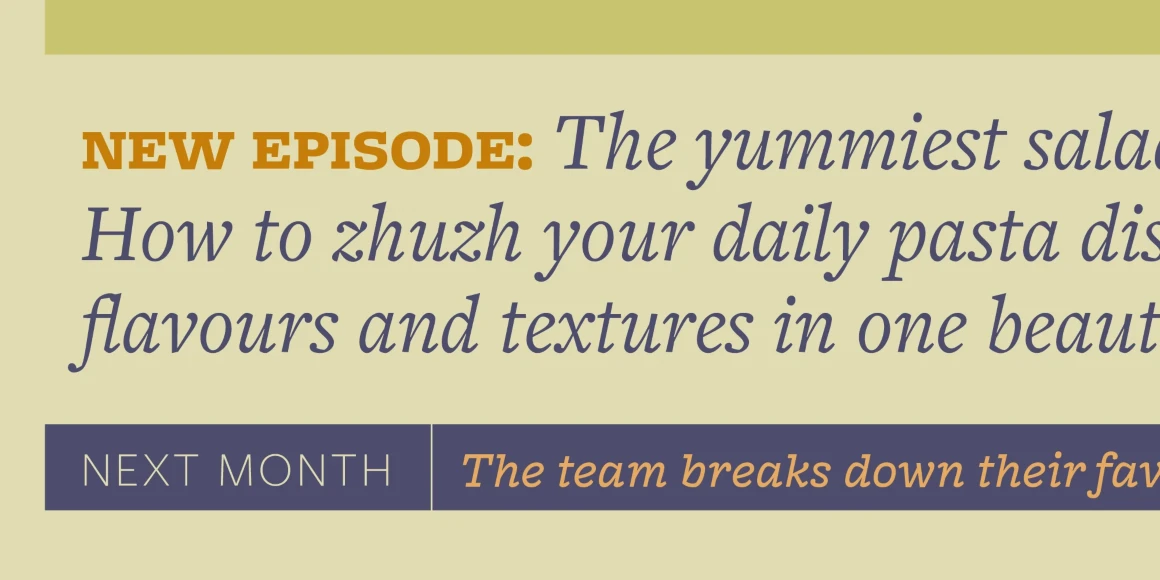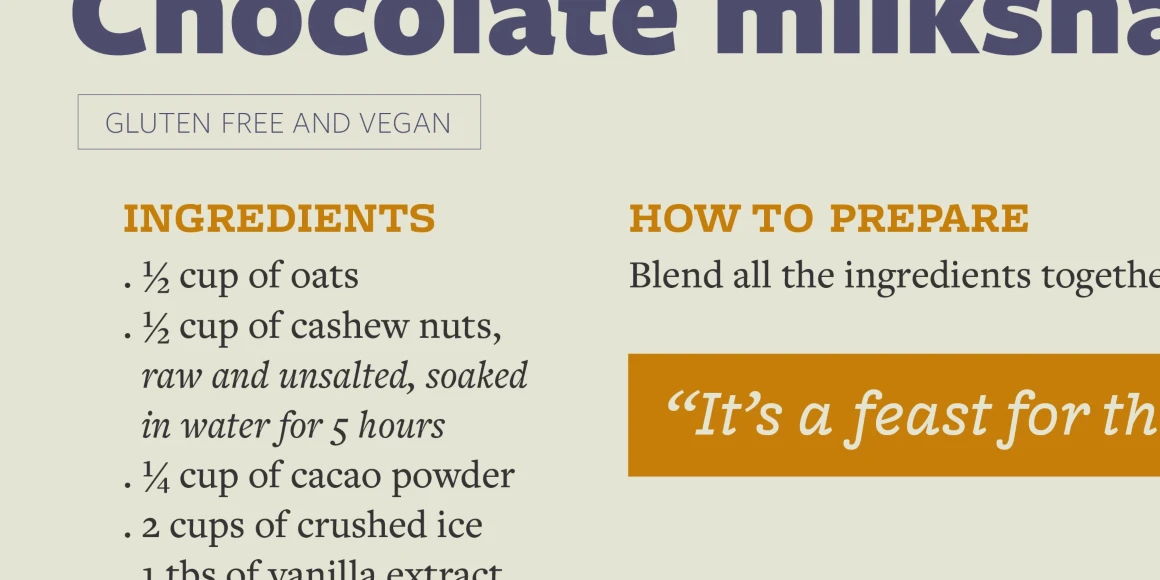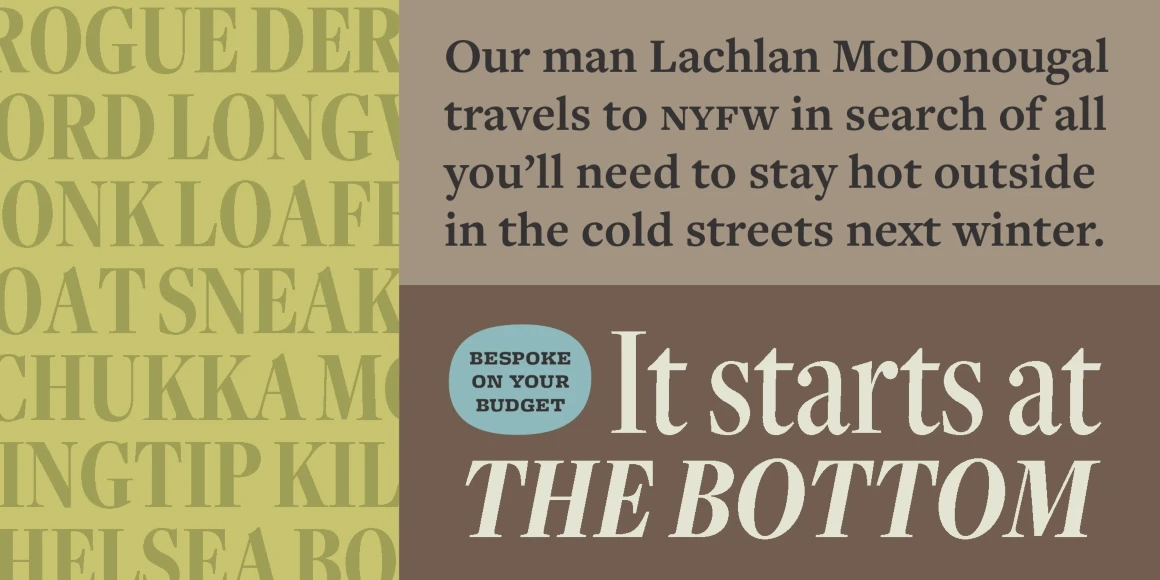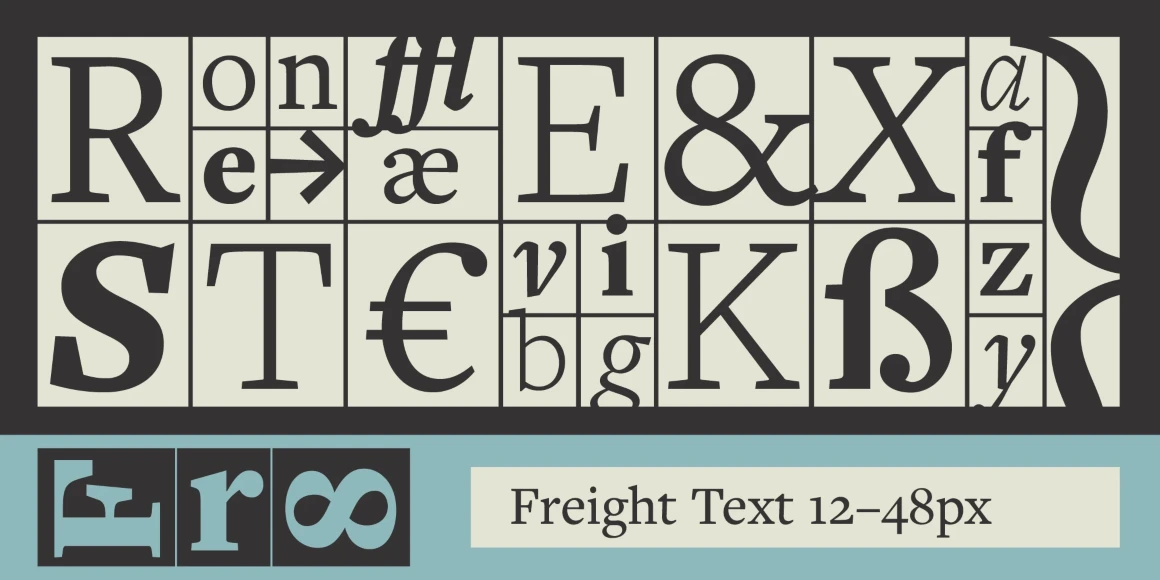
Freight Text
By Josh Darden
This is a collection of integrated typefaces ready to add unique style to any design project. What Joshua Darden started as a serif family inspired by the warmth and pragmatism found in 18th-century Dutch typefaces became The Freight Collection and now ranges across multiple weights, widths, and optical sizes — from Big, Display, Text, Micro, Macro, Neo, Round, and Sans — all of which include companion italics. That’s 192 fonts with the ability to be bold and daring just as easily as they can be quiet and unassuming.